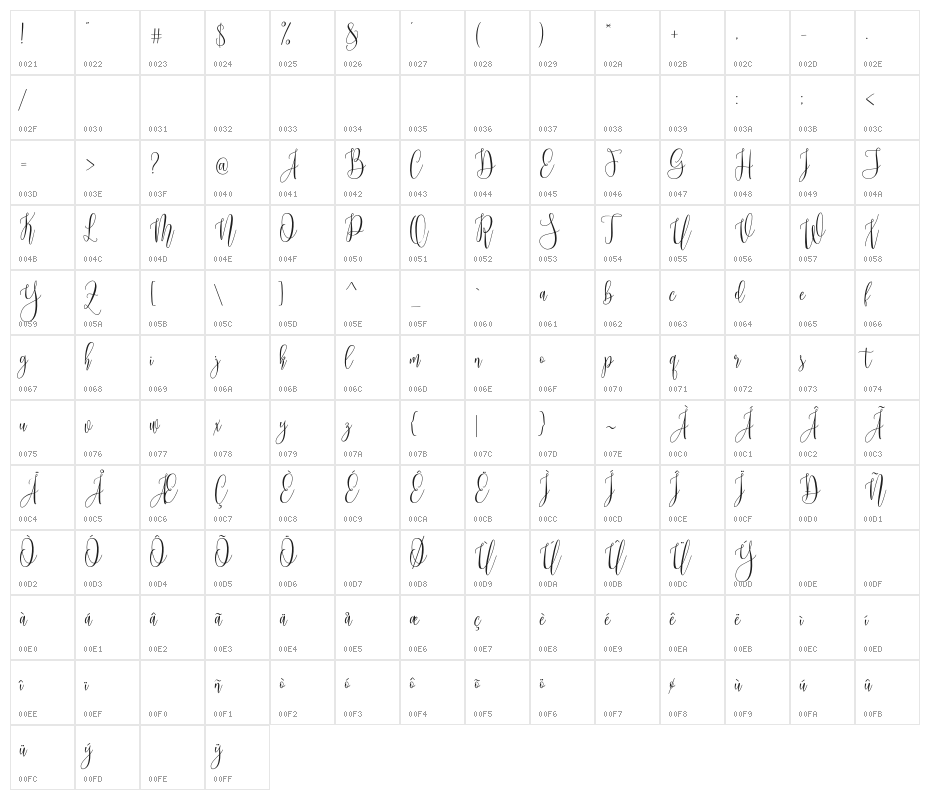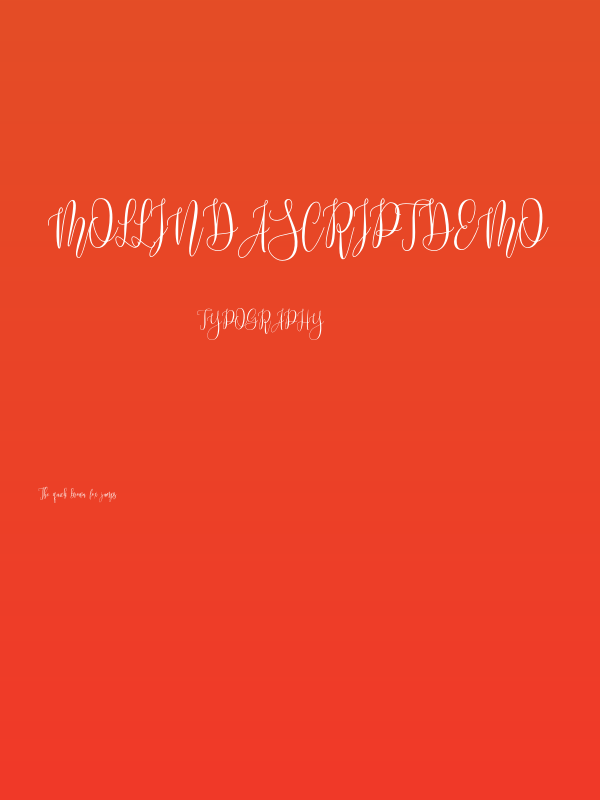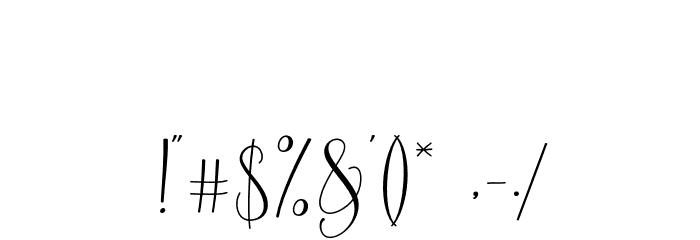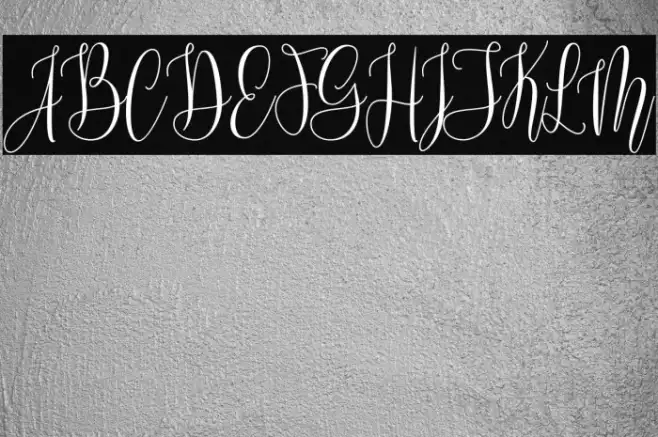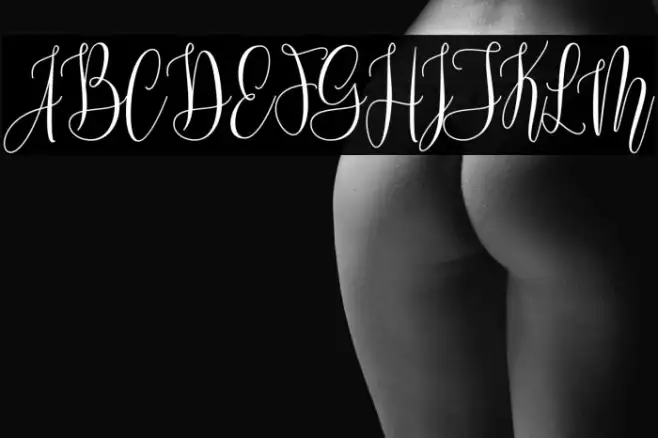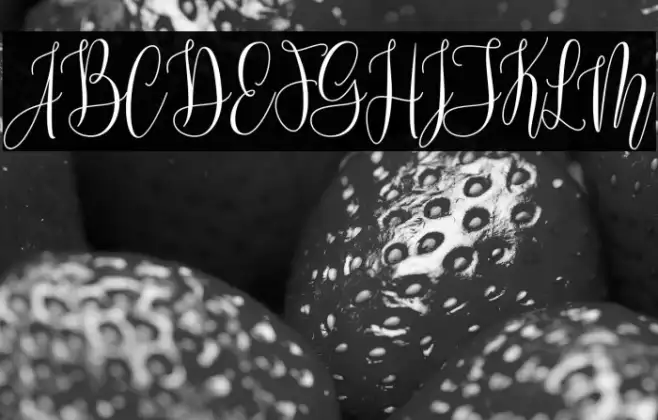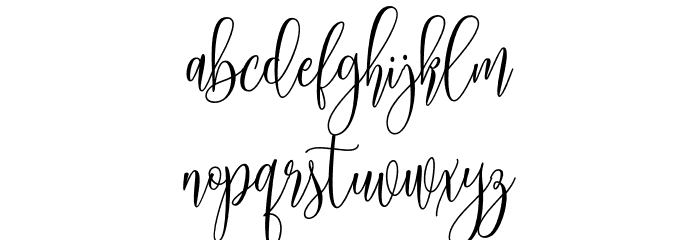
MollindaScriptDemo Font
This elegant script font features flowing, interconnected letters with a graceful and artistic flair. The uppercase characters are tall and slender, with intricate loops and swashes that add a touch of sophistication. The lowercase letters maintain a consistent style, with smooth curves and delicate strokes that create a harmonious appearance. The font includes a variety of special characters and numerals, each designed with the same attention to detail. Its overall aesthetic is both romantic and stylish, making it suitable for a range of creative projects.
| Proposed Projects | Ideal for wedding invitations, greeting cards, branding, and elegant packaging designs. |